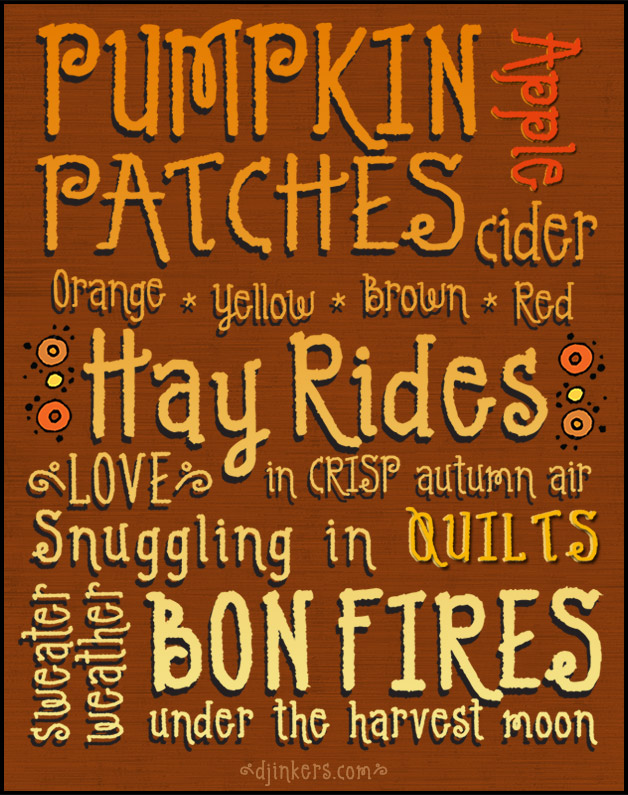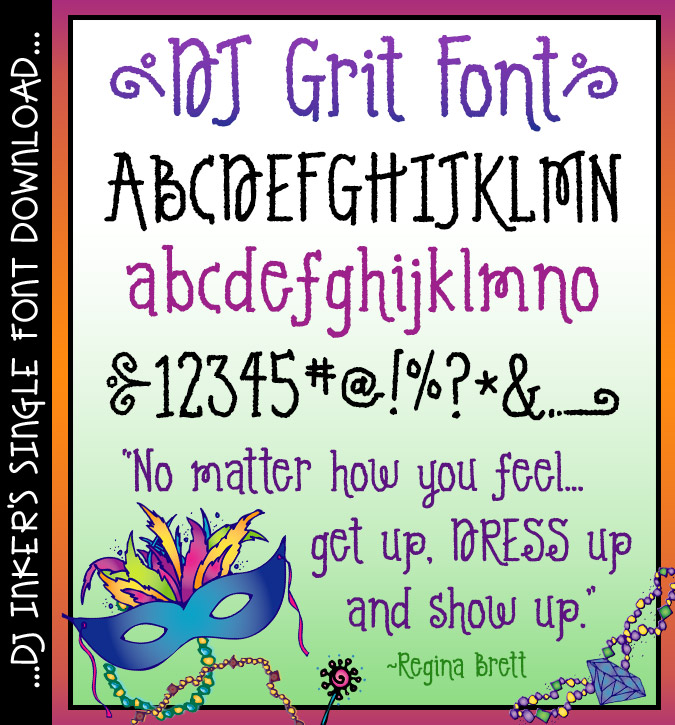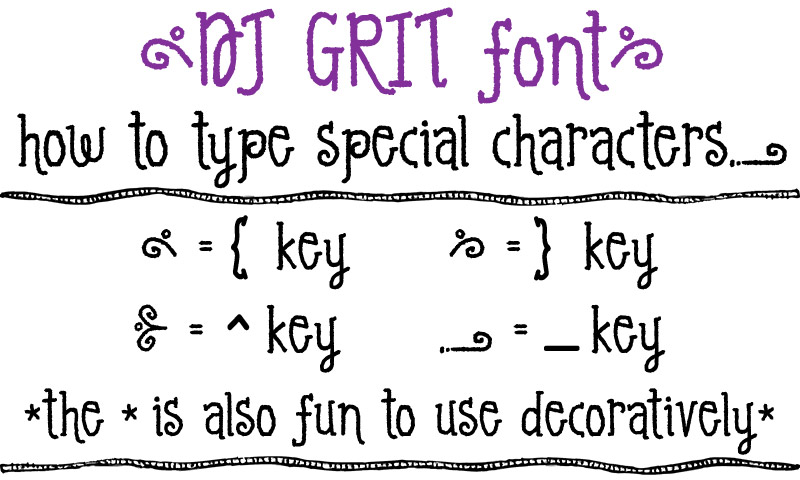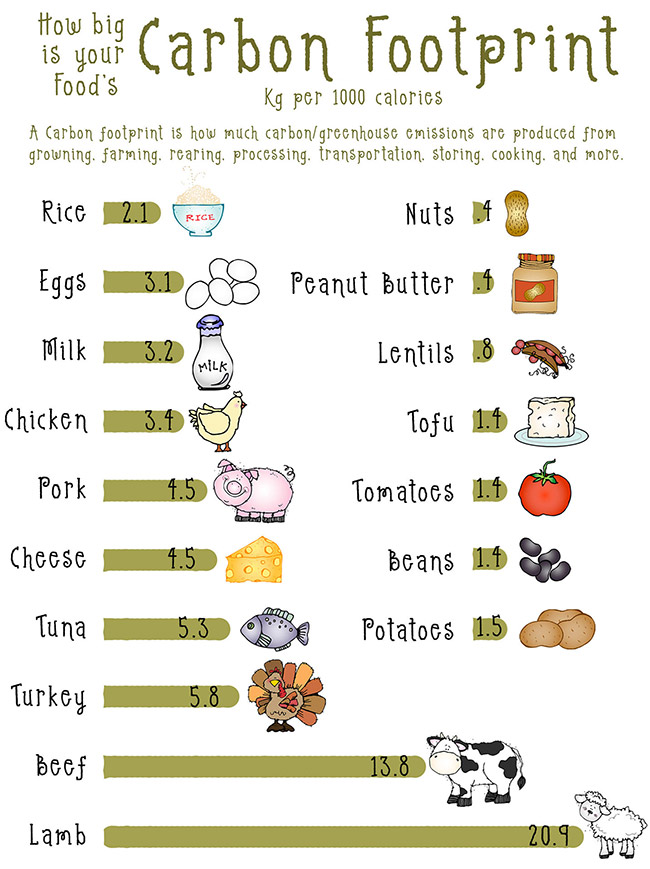
Our fabulous DJ Grit font will help you dress-up your projects with pizzazz and a smile. This fun, gritty texture really packs a punch... and you'll have a blast typing with the special character extras! :) Give your headlines the attention they deserve. Perfect for home, school crafting, parties and more.